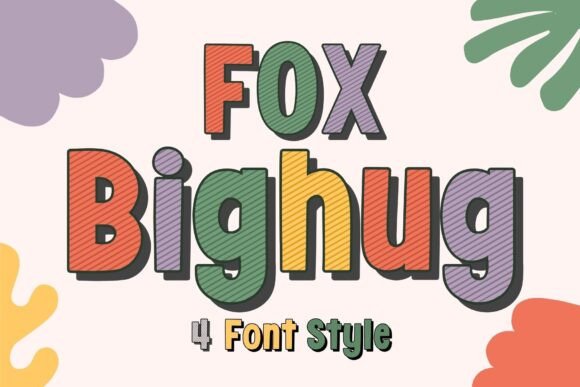
Introducing Fox Bighug Font: The Ultimate Choice for Playful and Eye-Catching Designs
Are you looking for a font that can add a touch of fun and warmth to your designs? Look no further than Fox Bighug Font. This fun and chunky display font is perfect for creating playful and eye-catching designs that are sure to capture the attention of your audience. With its bold, rounded letters and lively personality, Fox Bighug is ideal for a wide range of design projects, from posters and branding to packaging and children’s projects.
The Characteristics of Fox Bighug Font
Fox Bighug Font is a unique and charming font that is characterized by its bold, rounded letters. The font has a playful and lively personality that makes it perfect for designs that require a friendly and approachable tone. The chunky design of the font makes it highly legible, even at large sizes, which means that it can be used for a wide range of applications, from billboards to social media graphics.
One of the key features of Fox Bighug Font is its versatility. The font comes in a range of weights and styles, which makes it suitable for a wide range of design projects. Whether you’re creating a bold and eye-catching poster or a more subtle and sophisticated brand identity, Fox Bighug Font has the flexibility to adapt to your design needs.
The Benefits of Using Fox Bighug Font
There are many benefits to using Fox Bighug Font in your designs. Here are just a few:
- Playful and eye-catching: Fox Bighug Font is perfect for creating playful and eye-catching designs that are sure to capture the attention of your audience.
- Versatile: The font is highly versatile and can be used for a wide range of design projects, from posters and branding to packaging and children’s projects.
- Legible: The chunky design of the font makes it highly legible, even at large sizes.
Ideal Uses for Fox Bighug Font
Fox Bighug Font is ideal for a wide range of design projects, including:
- Posters: The font’s bold and eye-catching design makes it perfect for creating posters that are sure to grab the attention of your audience.
- Branding: Fox Bighug Font can be used to create a friendly and approachable brand identity that is sure to resonate with your target audience.
- Packaging: The font’s playful and lively personality makes it perfect for packaging designs that require a fun and eye-catching approach.
- Children’s projects: Fox Bighug Font is ideal for children’s projects, such as books, games, and educational materials.
- Greeting cards: The font’s friendly and approachable design makes it perfect for creating greeting cards that are sure to bring a smile to the recipient’s face.
- Social media graphics: Fox Bighug Font can be used to create social media graphics that are sure to grab the attention of your followers.
- Merchandise: The font can be used to create a wide range of merchandise, such as mugs, T-shirts, and tote bags.
Tips for Using Fox Bighug Font
Here are a few tips for using Fox Bighug Font in your designs:
- Use it sparingly: While Fox Bighug Font is perfect for creating eye-catching designs, it’s best to use it sparingly to avoid overwhelming your audience.
- Pair it with other fonts: Fox Bighug Font can be paired with other fonts to create a unique and visually appealing design.
- Experiment with colors: The font’s playful and lively personality makes it perfect for experimenting with bright and bold colors.
In conclusion, Fox Bighug Font is a fun and chunky display font that is perfect for creating playful and eye-catching designs. With its bold, rounded letters and lively personality, this font is ideal for a wide range of design projects, from posters and branding to packaging and children’s projects. Whether you’re creating greeting cards, social media graphics, or merchandise like mugs and T-shirts, Fox Bighug Font is sure to add a touch of fun and warmth to your project.